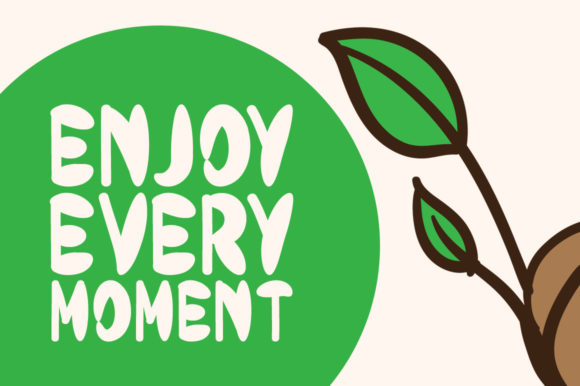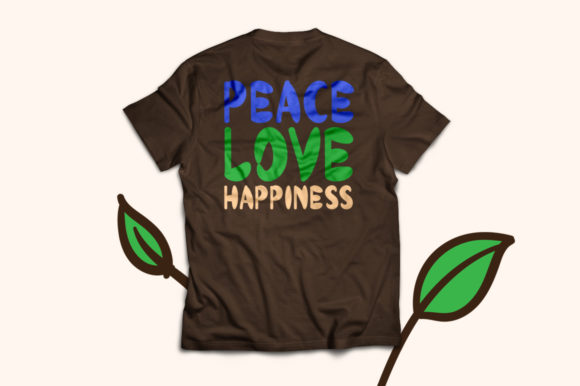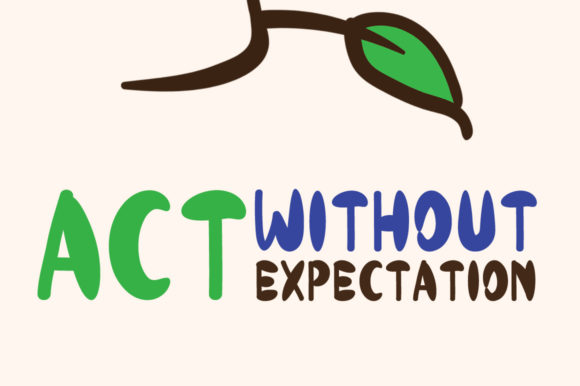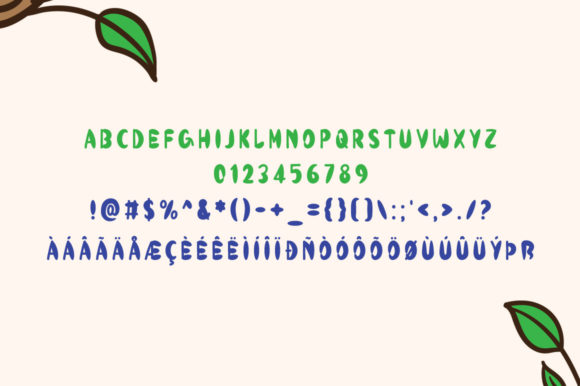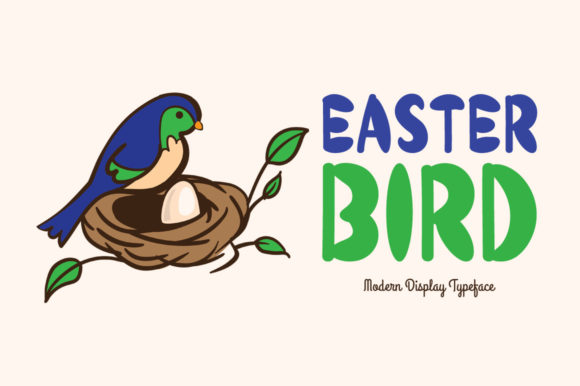
Easter Bird Font: A Modern Display Font for Creative Projects
Are you looking for a fresh and modern font to elevate your creative projects? Look no further than the Easter Bird Font! This brand new display font is perfect for designers, crafters, and DIY enthusiasts who want to add a touch of elegance and sophistication to their work.
What is Easter Bird Font?
The Easter Bird Font is a modern display font designed to make a statement. Its clean lines, elegant curves, and unique style make it perfect for a wide range of creative projects, from stationery and logos to t-shirts, papers, and print designs. Whether you’re a professional designer or a crafty DIY enthusiast, this font is sure to inspire your next project.
Key Features of Easter Bird Font
- Modern and Fresh Design: The Easter Bird Font boasts a modern and fresh design that’s perfect for creative projects that require a touch of sophistication.
- Highly Versatile: This font is perfect for a wide range of projects, including stationery, logos, t-shirts, papers, print designs, website headers, photo frames, flyers, music covers, posters, image sliders, and more.
- Elegant and Sophisticated: The Easter Bird Font has a unique and elegant style that’s sure to elevate your creative projects.
- Easily Readable: Despite its elegant design, the Easter Bird Font is highly readable, making it perfect for both digital and print projects.
Uses for Easter Bird Font
The Easter Bird Font is a highly versatile font that can be used for a wide range of creative projects, including:
- Stationery: Create beautiful stationery, including greeting cards, invitations, and letters.
- Logos: Use the Easter Bird Font to create stunning logos for your business or brand.
- T-Shirts and Apparel: Design eye-catching t-shirts, hoodies, and other apparel with the Easter Bird Font.
- Papers and Print Designs: Create beautiful papers, brochures, and print designs with the Easter Bird Font.
- Website Headers: Use the Easter Bird Font to create stunning website headers that grab attention.
- Photo Frames and Flyers: Design beautiful photo frames and flyers with the Easter Bird Font.
- Music Covers and Posters: Create stunning music covers and posters with the Easter Bird Font.
- Image Sliders: Use the Easter Bird Font to create eye-catching image sliders for your website or social media.
Why Choose Easter Bird Font?
So, why choose the Easter Bird Font for your creative projects? Here are just a few reasons:
- Unique and Modern Design: The Easter Bird Font has a unique and modern design that’s sure to make your projects stand out.
- Highly Versatile: This font is perfect for a wide range of creative projects, making it a great addition to your font library.
- Elegant and Sophisticated: The Easter Bird Font has an elegant and sophisticated style that’s sure to elevate your creative projects.
- Easily Readable: Despite its elegant design, the Easter Bird Font is highly readable, making it perfect for both digital and print projects.